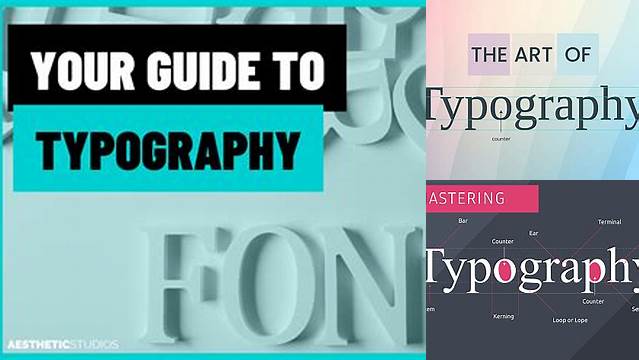
Fonts For Typography Edits: A Comprehensive Guide
Choosing the right fonts is absolutely crucial when you're diving into typography edits, guys. It's not just about making things look pretty; it's about conveying the right message, setting the mood, and ensuring readability. Think of fonts as the voice of your text. A playful script font will give a completely different vibe than a strong, sans-serif typeface. In the world of graphic design, web development, and even simple document creation, the fonts you select can make or break your entire project. You want to pick something that's not only aesthetically pleasing but also functional and appropriate for your audience and purpose. So, let's break down what makes a font great for editing and how to navigate the vast ocean of typographic options available to you. We'll explore different categories, consider legibility, and even touch on licensing, because nobody wants a copyright headache, right? Get ready to level up your font game and make your typography edits sing!
Understanding Font Families for Edits
Alright, let's talk about font families, fam. When we're doing typography edits, it's super helpful to understand that fonts aren't just random collections of letters. They usually come in families, which means a single typeface (like Helvetica) will have variations like regular, bold, italic, light, condensed, etc. Knowing these variations is key for creating hierarchy and emphasis in your edits. For instance, if you're editing a blog post, you might use the regular weight for body text, the bold weight for headings, and the italic for quotes or specific call-outs. This consistency within a family makes your design look cohesive and professional. It's like having a set of tools – you pick the right one for the job. Using different fonts from completely unrelated families can often lead to a messy, chaotic look. So, mastering font families means you can create visual interest and guide the reader's eye without overwhelming them. It’s all about building a harmonious typographic system for your edits. Strong typography is built on a solid understanding of these relationships. It’s not just about picking a cool font; it’s about understanding its siblings and how they work together to create a unified whole. This foundational knowledge is paramount for anyone serious about typography edits.
Serif vs. Sans-Serif Fonts for Edits
Now, let's get into the big divide in the font world: serif versus sans-serif. This is a fundamental concept for anyone doing typography edits. Serif fonts, like Times New Roman or Georgia, have those little decorative strokes (serifs) at the ends of the letterforms. They've been around forever and are often associated with tradition, formality, and readability in long blocks of print text, like books and newspapers. Think of them as adding a little bit of flair and grounding each character. On the other hand, sans-serif fonts, such as Arial or Open Sans, lack these decorative strokes. They're generally considered more modern, clean, and minimalist. Sans-serifs often shine in digital environments like websites and apps, and for headings or shorter pieces of text where clarity is paramount. When you're making typography edits, deciding between serif and sans-serif is often one of the first, and most important, decisions you'll make. It sets the overall tone for your design. Do you want something classic and authoritative, or something sleek and contemporary? Your choice here will heavily influence how your audience perceives your content. Don't underestimate the power of this basic distinction; it's a cornerstone of effective typography edits and sets the stage for everything else.
Monospaced Fonts for Specific Edits
Moving on, we've got monospaced fonts, and these are pretty unique for certain typography edits, guys. What makes them special? Well, in a monospaced font, every single character – from an 'i' to a 'w' – takes up the exact same amount of horizontal space. This is totally different from most fonts (like the ones we've been talking about) where characters have variable widths. You'll typically see monospaced fonts used in coding environments (like your IDE or terminal) and in old-school typewriters. Their consistent spacing creates a grid-like appearance that's great for aligning columns of text and numbers, which is a lifesaver in technical documents or code snippets. When you're doing typography edits for things like code examples, data tables, or even certain retro-style designs, a monospaced font is often your go-to choice. They lend an air of technical accuracy and precision. Plus, for coding, it makes it way easier to distinguish between similar characters like '0' (zero) and 'O' (uppercase o), or '1' (one) and 'l' (lowercase L). So, while they might not be your everyday font, monospaced fonts are essential tools in the typographer's toolkit for specific, highly functional typography edits. They bring a unique aesthetic and practical utility that other fonts just can't match for these particular use cases. It's all about the right tool for the right job, and monospaced fonts definitely fit the bill for techy or structured content edits.
Script and Display Fonts for Creative Edits
Now, let's talk about the more decorative side of things: script and display fonts! These are the wildcards in your typography edits, perfect for adding personality and grabbing attention. Script fonts, as the name suggests, mimic handwriting or calligraphy. They can range from elegant and formal, like a wedding invitation script, to casual and playful, like a brush script. They're fantastic for titles, invitations, logos, or any place where you want a personal, artistic touch. However, use them with caution! Too much script font can become hard to read, especially for longer passages. They're best used sparingly as accent pieces. Display fonts are a broad category, but generally, they're designed to be seen from a distance and make a statement. Think bold, quirky, or highly stylized designs. They're meant for headlines, posters, book covers, or anywhere you need maximum visual impact. Like script fonts, display fonts aren't usually ideal for body text because legibility can be an issue. When you're making creative typography edits, these fonts are your secret weapon to inject style and flair. Just remember, the key is balance. Use them to complement more readable fonts, not to replace them. They are the glitter in your design, so use them strategically for maximum impact in your typography edits. These fonts are all about making a statement and are perfect for those moments when you need your design to shout rather than whisper.
Variable Fonts: The Future of Typography Edits?
Have you guys heard about variable fonts? They're a pretty recent and super exciting development in the world of typography, and they're starting to make waves in typography edits. So, what's the deal? Traditionally, if you wanted a font in different weights or styles (like bold or italic), you'd need a separate font file for each. Variable fonts, however, are a single font file that contains a whole range of styles. Think of it like a slider control for your font. You can smoothly transition between light and bold, condensed and extended, or even adjust other axes like slant or optical size, all within one file. This is a game-changer for web designers and anyone focused on performance and flexibility. It means smaller file sizes (faster loading times!) and incredible design freedom. For typography edits, this opens up a world of possibilities for subtle adjustments and fine-tuning. Instead of picking from a few predefined weights, you can dial in the exact weight or style you need. This level of control can lead to incredibly nuanced and responsive typographic designs. Variable fonts are definitely pushing the boundaries of what's possible, offering designers unprecedented creative control and efficiency. Keep an eye on these; they're likely to become a much bigger part of typography edits in the years to come. They represent a significant leap forward in font technology and creative application.
Key Considerations for Typography Edits
When you're deep in the trenches of typography edits, there are a few golden rules to keep in mind to ensure your work is effective and looks chef's kiss. It's not just about slapping on a cool font; it's about making deliberate choices that serve your content and your audience. Let's dive into some crucial factors that will elevate your typography edits from basic to brilliant. These are the principles that seasoned designers swear by, and understanding them will give you a serious edge. We're talking about making your text not only look good but also do its job – communicate clearly and effectively. So, grab your favorite beverage, and let's get down to the nitty-gritty of making your typography edits shine.
Readability and Legibility in Font Choices
Okay, guys, let's talk about the absolute bedrock of good typography edits: readability and legibility. These terms sound similar, but they mean slightly different things, and both are super important. Legibility refers to how easily individual letters and characters can be distinguished from one another. Think about distinguishing an 'I' from an 'l' or a '0' from an 'O'. Fonts with clear, distinct letterforms are highly legible. Readability, on the other hand, refers to how easily blocks of text can be read and understood. This involves factors like line spacing (leading), letter spacing (tracking), word spacing, and the overall flow of the text. A highly legible font can still be unreadable if it's poorly spaced or used in a dense block. When you're making typography edits, always prioritize readability and legibility. No matter how fancy or unique a font looks, if people can't easily read it, it's failed its primary purpose. Consider your audience and the medium. For long-form content, especially in print, highly legible serif fonts often work best. For web content, clear sans-serifs are usually a safe bet. Test your choices! Read the text aloud. Does it flow smoothly? Are there any awkward moments? Making sure your text is a pleasure to read is the ultimate goal of effective typography edits, ensuring your message lands without friction.
Contrast and Hierarchy in Typography Edits
Contrast and hierarchy are your best friends when you're doing typography edits, seriously. They're the secret sauce that guides the reader's eye through your content and makes information digestible. Contrast is all about using differences in size, weight, style, and color to make elements stand out. Think about the difference between your main headline and the body text. That difference is contrast! It helps to break up monotony and draw attention to important information. Hierarchy, closely related to contrast, is about establishing a clear order of importance for your text elements. You want your reader to instantly understand what's most important (the headline), then what's secondary (subheadings), and so on, down to the fine print. Using a larger, bolder font for your main title and a smaller, regular weight for the body copy creates a clear visual hierarchy. Effective use of contrast and hierarchy makes your designs intuitive and user-friendly. Without them, your text can look like a jumbled mess, and readers won't know where to look or what to focus on. Mastering these principles in your typography edits will transform cluttered layouts into organized, easy-to-navigate experiences. It's about leading the reader on a journey through your content, making it easy for them to find what they need and understand the structure of the information. Strong hierarchy is built on intelligent contrast.
Color and Tone in Font Selection
Don't sleep on color and tone when you're making typography edits, guys! The color you choose for your fonts, and the overall tone they convey, can drastically impact your message and the user's experience. Color psychology is a real thing – blue can evoke trust and calmness, red can signal urgency or passion, green often suggests nature or growth. Matching your font color to your brand's identity or the mood of your content is key. Beyond just the hue, consider the contrast between the font color and its background. Poor contrast (like light gray text on a white background) is a major readability killer. Choosing the right color palette for your fonts is essential for both aesthetics and accessibility. Now, thinking about tone, the font itself contributes hugely. A chunky, bold font has a different tone than a light, airy script. Is your message meant to be serious and authoritative, or fun and playful? Your font choice, combined with color, communicates this tone. For example, using a playful, bright font in a dark, muted color might send mixed signals. Ensure your font's personality aligns with the color and the overall message you're trying to send. Cohesive color and tone create a powerful, unified message in your typography edits, making your design resonate more deeply with your audience.
Font Pairing Strategies for Edits
Alright, let's level up your typography edits with some slick font pairing strategies. Mixing and matching fonts can add a ton of personality and visual interest, but it's easy to mess up. The goal is to create a harmonious combination where the fonts complement each other, rather than clash. A common and effective strategy is to pair a serif font with a sans-serif font. This provides built-in contrast and hierarchy. For instance, use a bold sans-serif for your headline and a readable serif for your body text. Another approach is to pair fonts within the same superfamily but with different weights or styles. For example, using a light italic version of a font for a quote against the regular weight of the same font for body text. Good font pairing creates visual harmony and guides the reader. When choosing fonts to pair, consider their x-height (the height of lowercase letters like 'x'), stroke contrast, and overall personality. Fonts with similar x-heights tend to look good together. Also, think about pairing a more decorative or